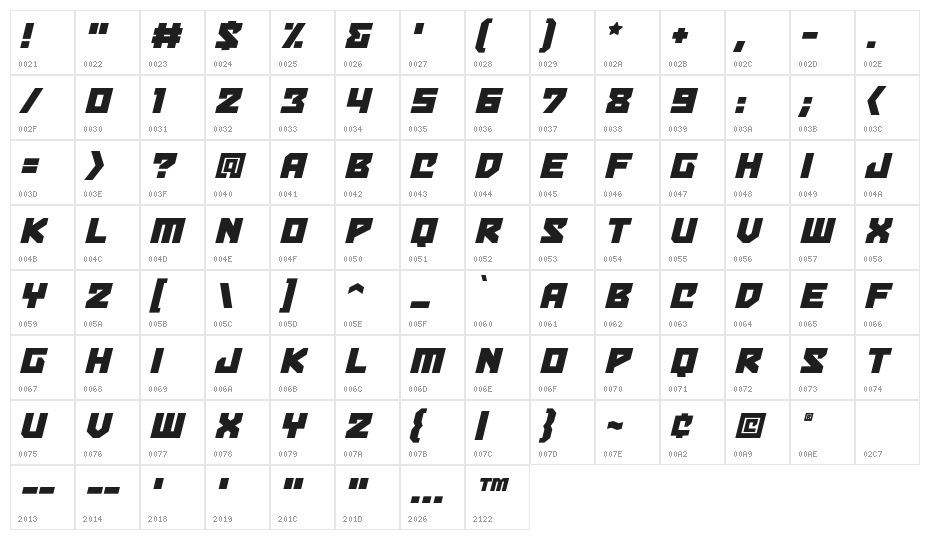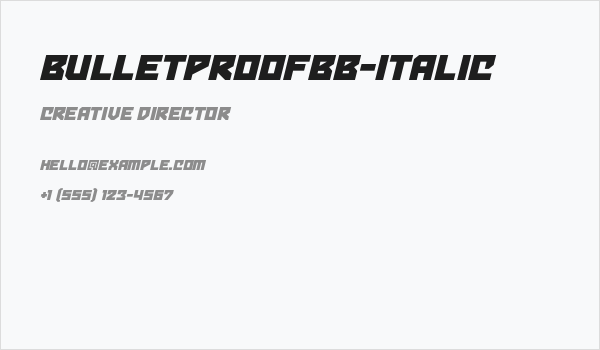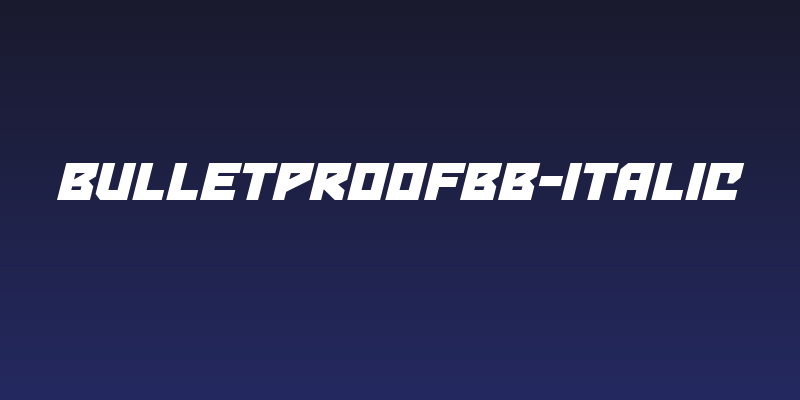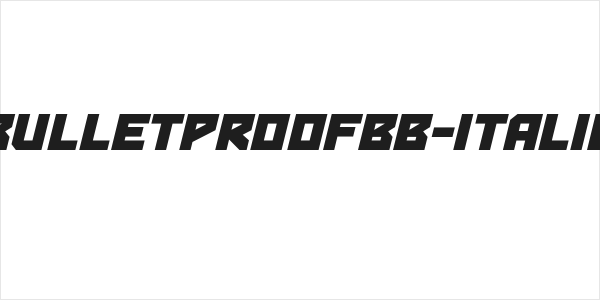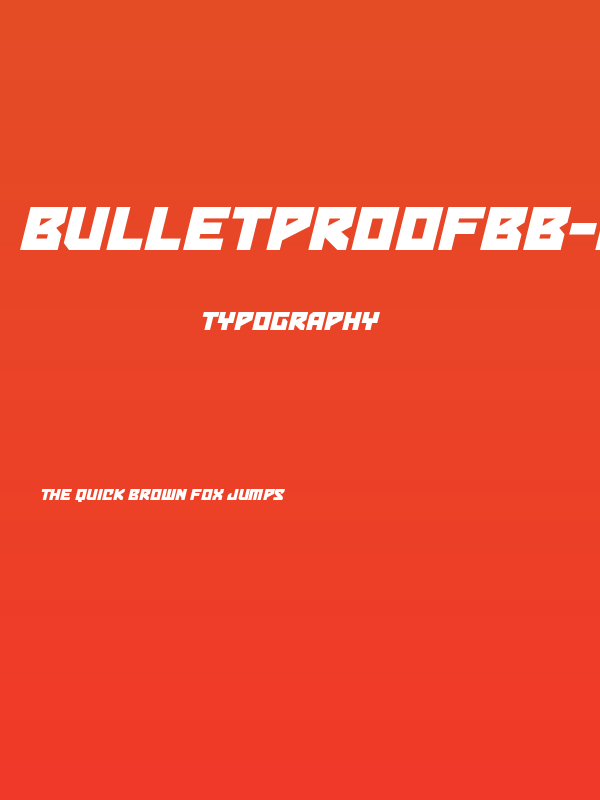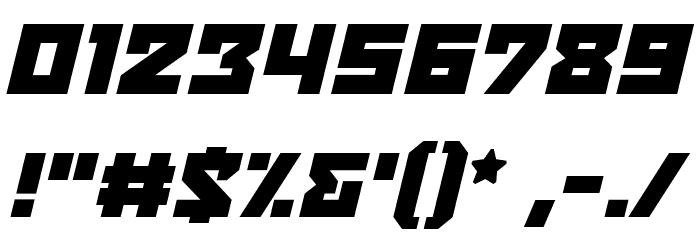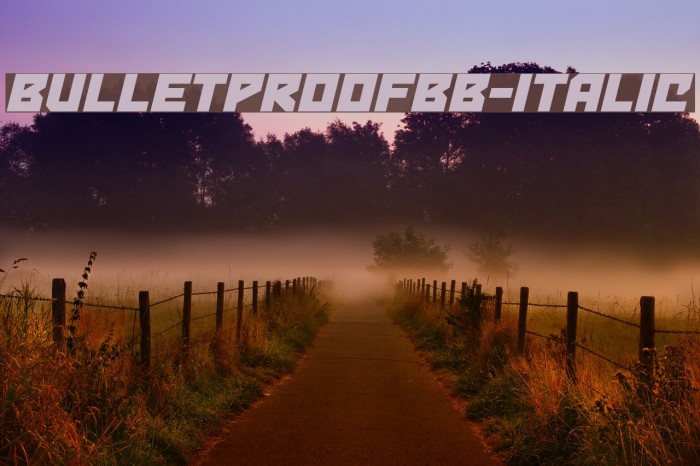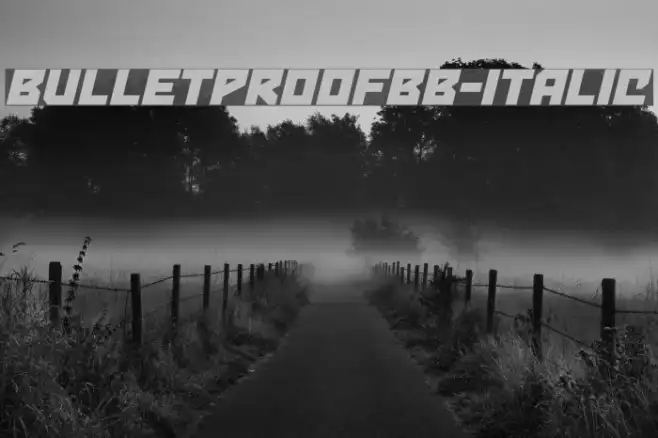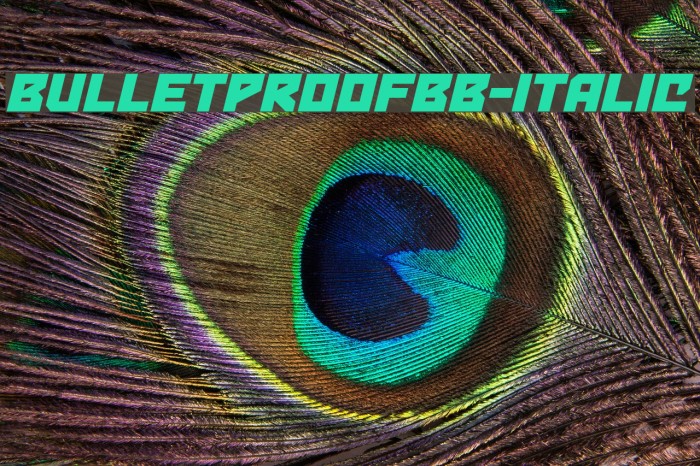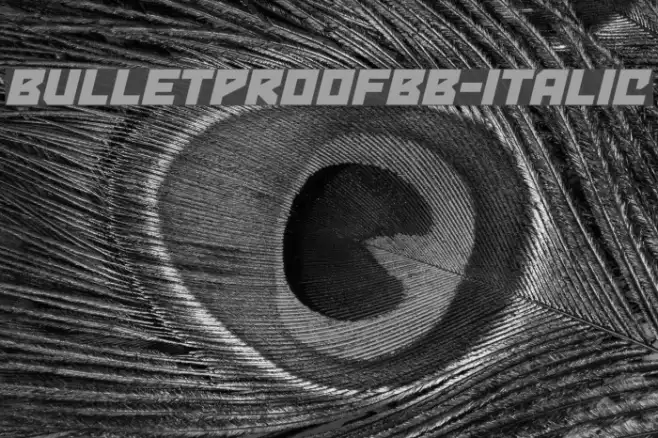
BulletproofBB-Italic Font
BulletproofBB-Italic Description
This font features a bold and dynamic design with a strong geometric influence. The characters are sharply angled, giving a sense of movement and energy. The uppercase and lowercase letters maintain a consistent style, with thick strokes and angular edges. The numbers and special characters follow the same bold and angular aesthetic, ensuring uniformity across all glyphs. This font's italic style adds a forward-leaning slant, enhancing its dynamic appearance. The overall look is modern and impactful, making it suitable for attention-grabbing designs.
| Proposed Projects | Ideal for sports branding, action movie posters, video game titles, and dynamic logo designs. |